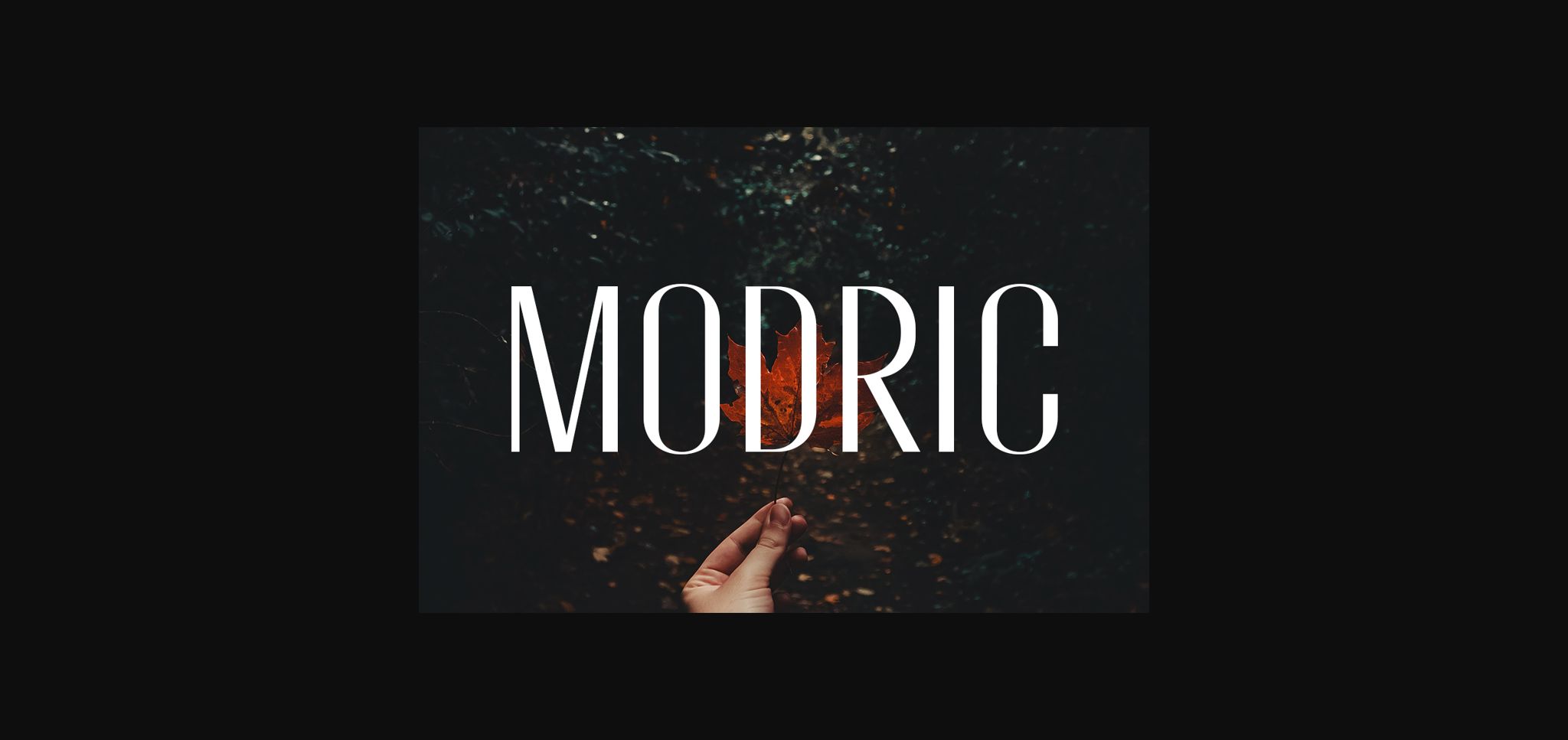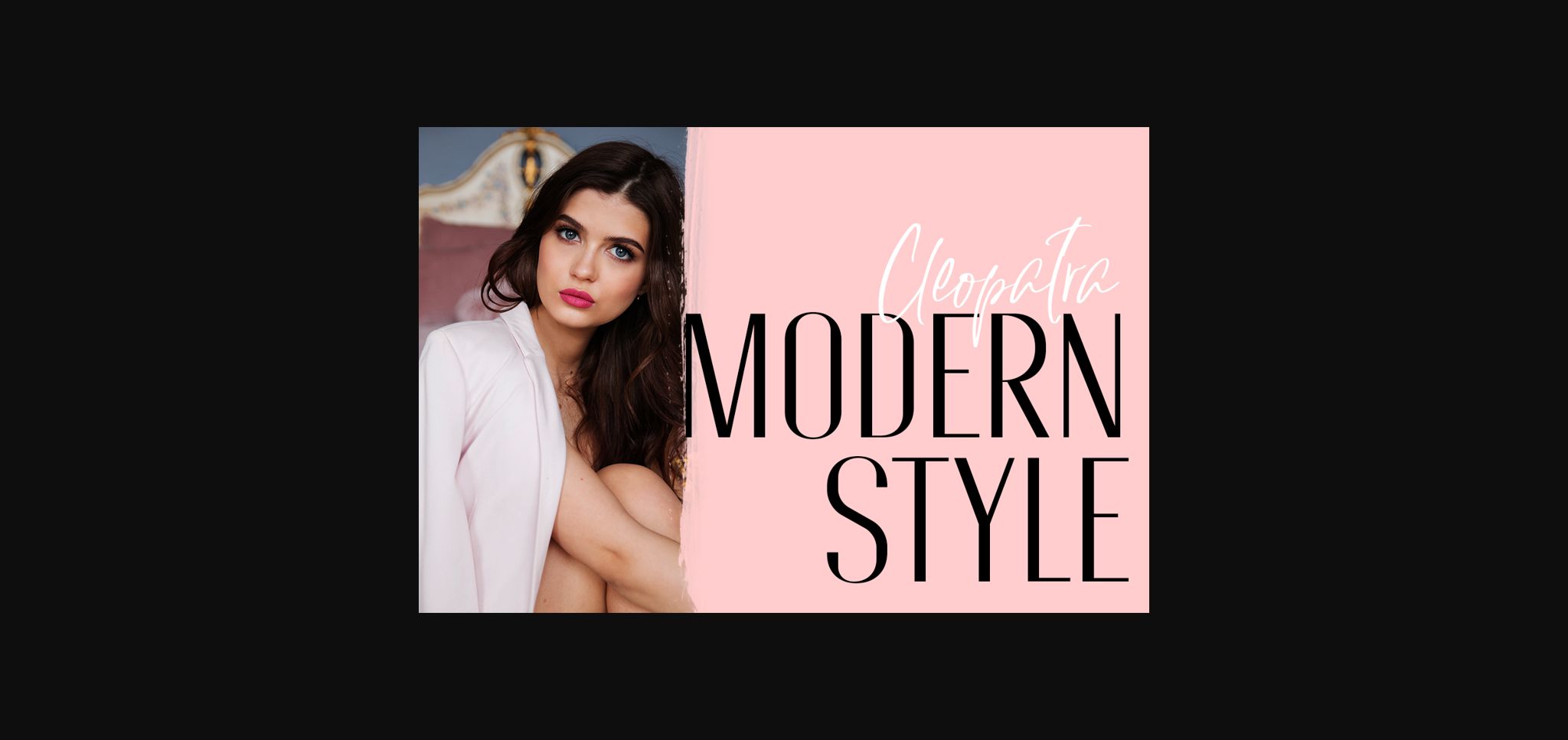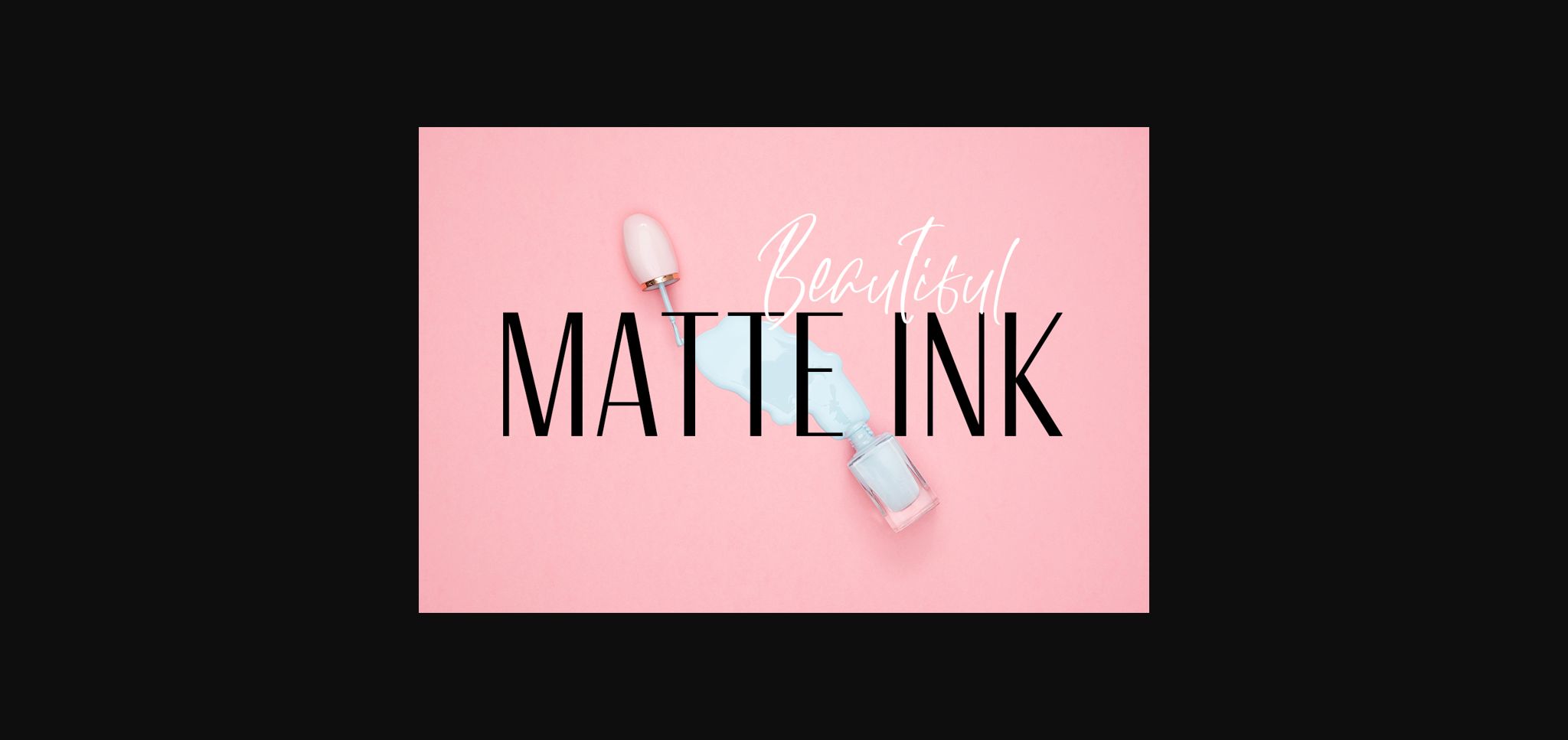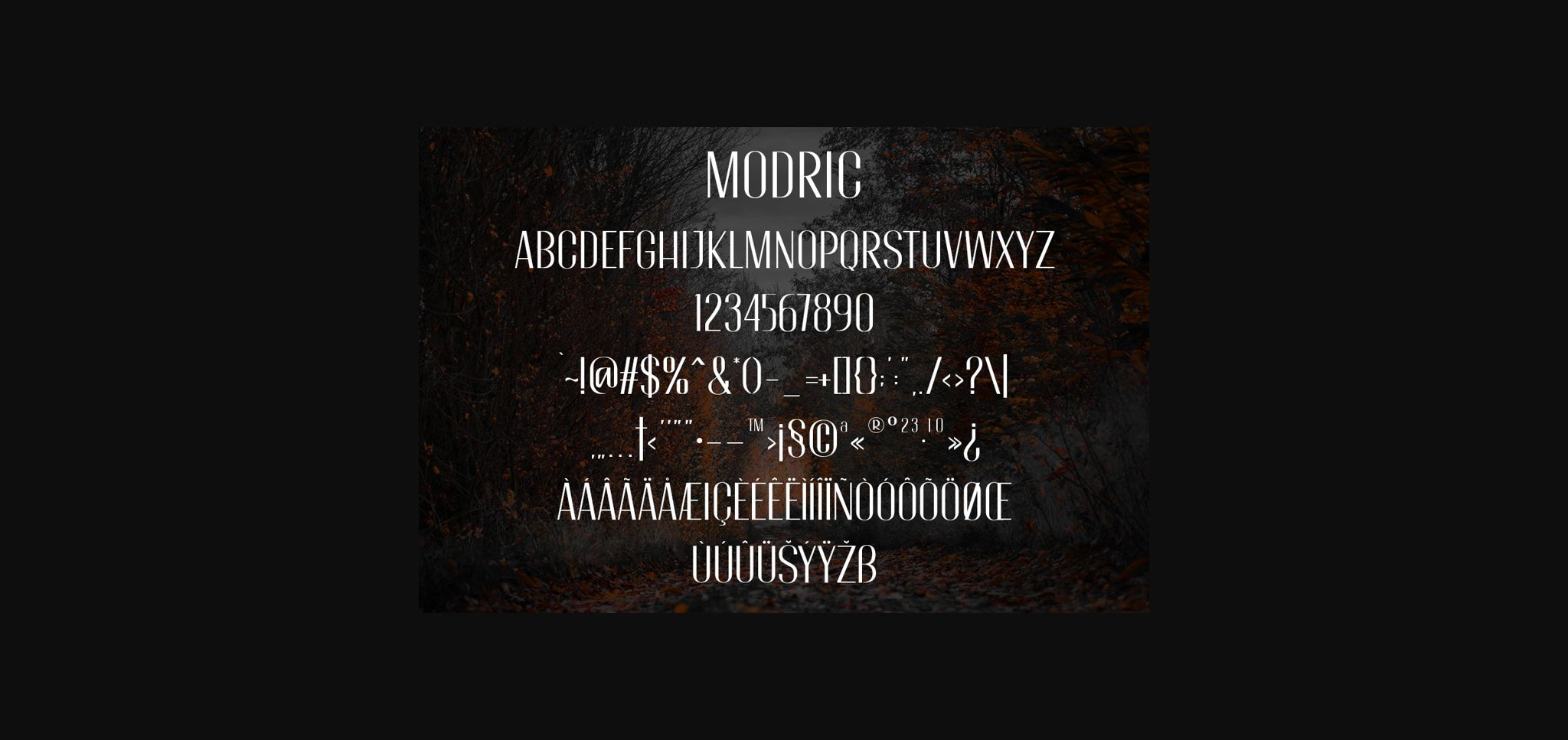
Modric Font
About Modric Font
Modric is an incredibly beautiful sans serif font that features a charming condensed style. Fall in love with its modern charm!